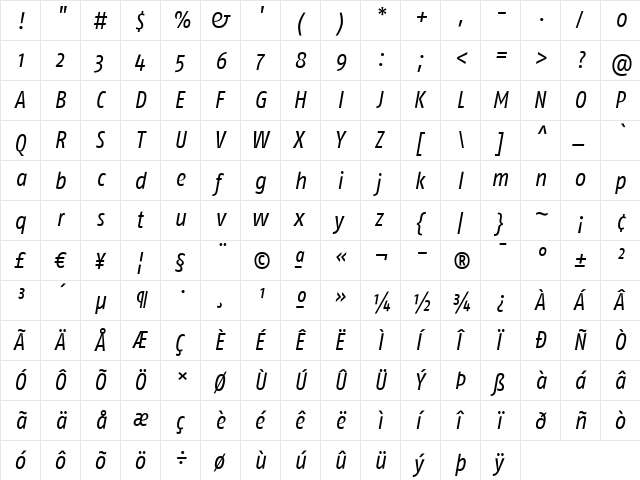
FagoCo Italic
Design Context for FagoCo Typeface
FagoCo is a composed and adaptable typeface that performs quietly and consistently across a wide range of design contexts. Its italic angle brings a sense of urgency and motion to the letterforms.
Pro Tip: Use FagoCo for emphasis, pull quotes, and subheadings where its slanted energy can add rhythm to the layout.